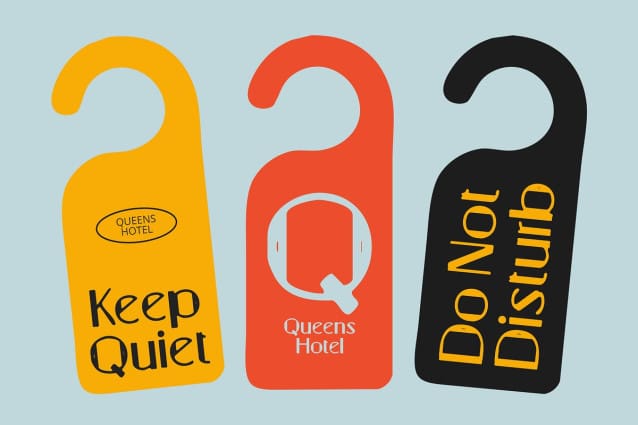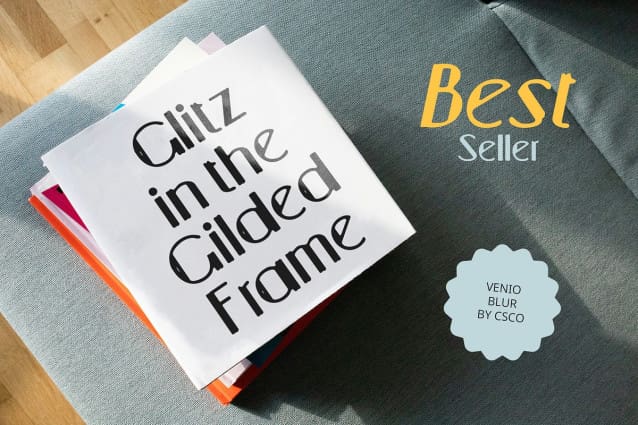
Venio Blur Font
Venio Blur Font is a modern sans-serif font that fuses the sleek elegance of Art Deco design with bold geometric forms, creating a harmonious blend of classic luxury and contemporary flair. Its clean, symmetrical lines and rigid shapes evoke the sophistication of the 1920s, while the modern blur effect introduces a dynamic, smooth quality that softens and distorts parts of the letterforms for added intrigue.
Elegant Art Deco Meets Bold Geometric Design This font’s geometric precision and well-balanced proportions give it a strong, refined appearance, while the Art Deco influence infuses it with timeless elegance and style. The blur effect, subtly applied to certain letter parts, brings a sense of movement and fluidity, enhancing the font’s visual appeal with a mysterious, almost ethereal quality that makes it stand out in any design.
Dynamic and Luxurious Aesthetic Ideal for projects that combine classic sophistication with a touch of contemporary innovation, Venio Blur excels in designs where luxury and modernity must coexist. Its bold, structured shapes and smooth blur elements create a visually stunning effect that is both chic and approachable, making it perfect for branding, luxury event invitations, stylish editorial layouts, and high-end packaging.